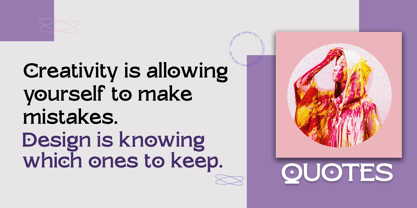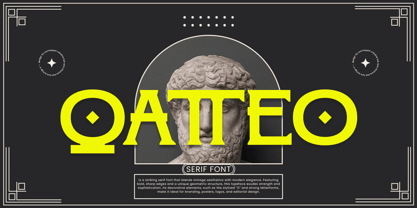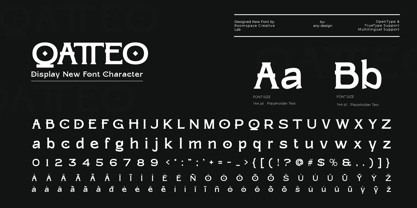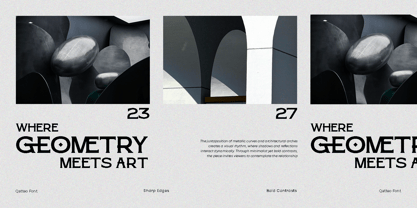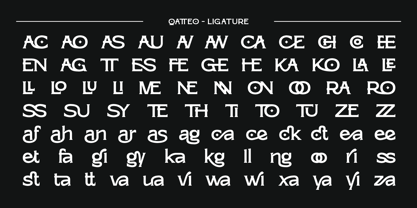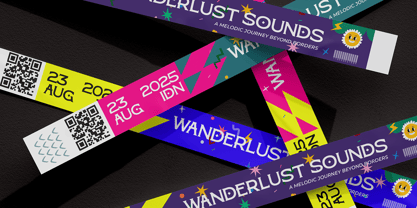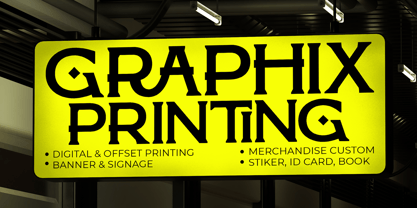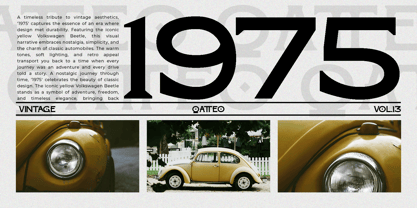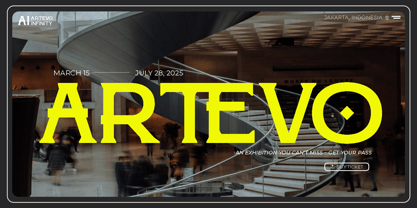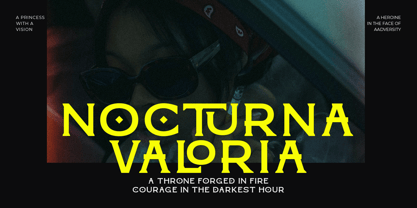
Qatteo
by Jafar07
The Qatteo Font Family was designed by Bakhrudin Ja'far and published by Jafar07. Qatteo contains 2 styles and family package options. More about this family
Qatteo is a striking decorative serif font that blends bold geometry with artistic elegance. Designed to make an impact, this typeface features sharp edges, unique letterforms, and a variety of stylish ligatures, creating a sophisticated yet daring look.
With its elegant and bold serif style, Qatteo offers an extensive ligature set for unique compositions, making it perfect for luxury branding, editorial designs, posters, logos, and high-end packaging. Its distinctive “O” and carefully crafted alternates add a touch of personality, ensuring your typography stands out effortlessly. Whether you’re working on fashion projects, creative layouts, or statement pieces, Qatteo delivers confidence and sophistication. Plus, it’s fully compatible with major design software, making it a seamless addition to your creative toolkit.
Designers: Bakhrudin Ja'far
Foundry: Jafar07